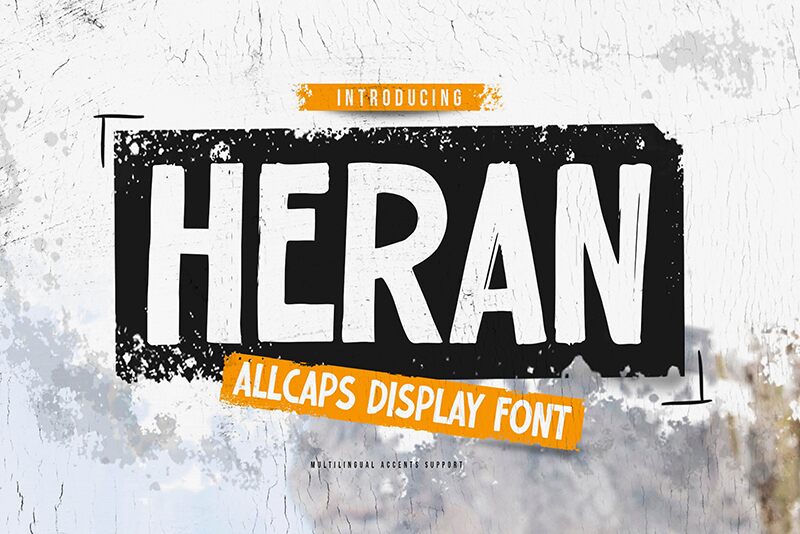
Heran
Heran emerges as a distinctive typeface crafted by Gassstype, embodying the playful spirit of cartoon aesthetics with a modern twist. This all caps display font boasts a bold weight that commands attention, making it an impeccable choice for creative projects seeking to inject personality and emphasis. With its dramatic movement and casually penned strokes, Heran is more than just type—it's a statement.
The textured, strong characteristics of Heran give it an organic feel, ideal for designs that benefit from a touch of whimsy paired with robust energy. Whether it's gracing the labels of artisanal products or splashed across posters that demand a second glance, this font transforms words into visual anchors. From branding endeavors to packaging delights, greeting cards to web design—Heran's versatility shines in settings that call for something uniquely compelling and decidedly modern.
Witness how Heran moves beyond conventional boundaries to elevate your designs with its rough yet refined charm.